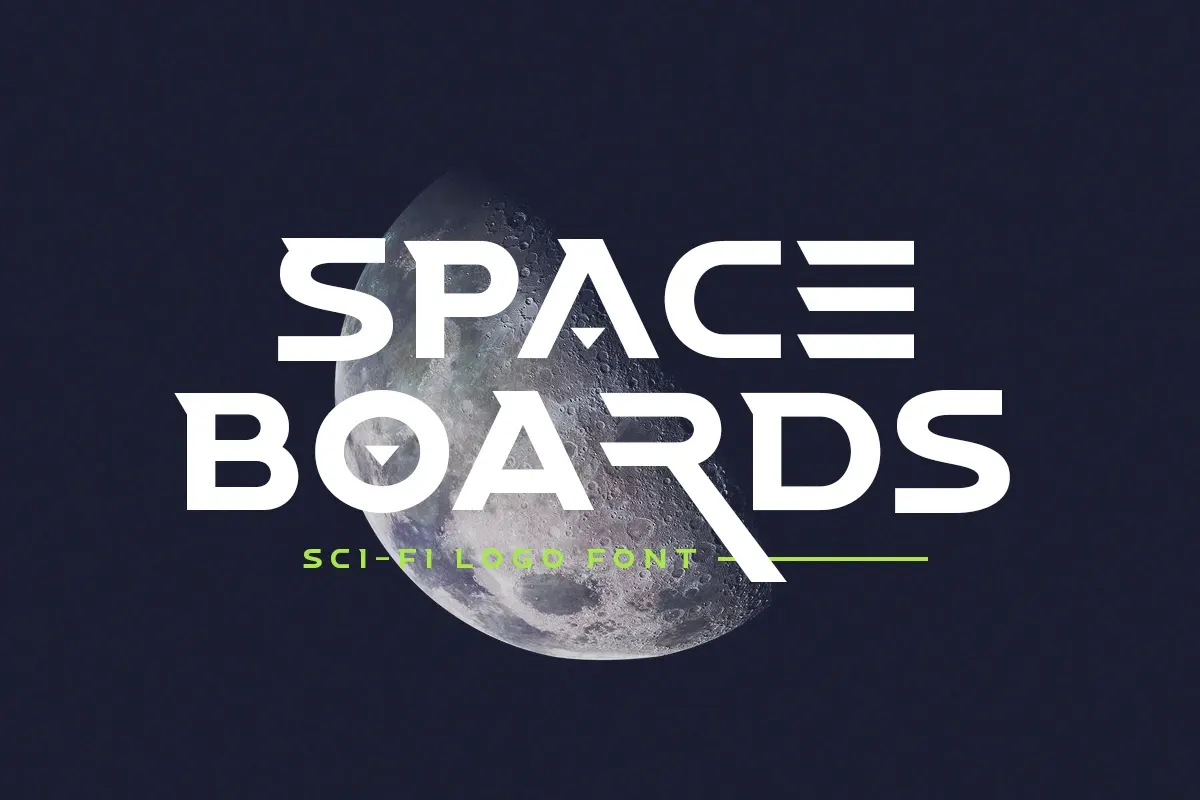
Space Boards - Sci-Fi Logo Font Free Download
The Space Boards - Sci-Fi Logo Font Free Download is a futuristic and bold typeface designed to bring an out-of-this-world feel to your designs. With its sleek, sci-fi-inspired letterforms, this font is perfect for creating logos, posters, titles, and branding that need a modern, space-age vibe. Whether you're working on a science fiction project, tech branding, or any creative venture that demands a cutting-edge look, Space Boards makes your designs truly stand out.
Space Boards - Sci-Fi Logo Font Free Download is ideal for designers who want to add a futuristic and dynamic touch to their work. Perfect for science fiction, tech, and space-related designs, this font will make your projects pop. Download this bold and sleek font today and bring a cosmic edge to your designs!